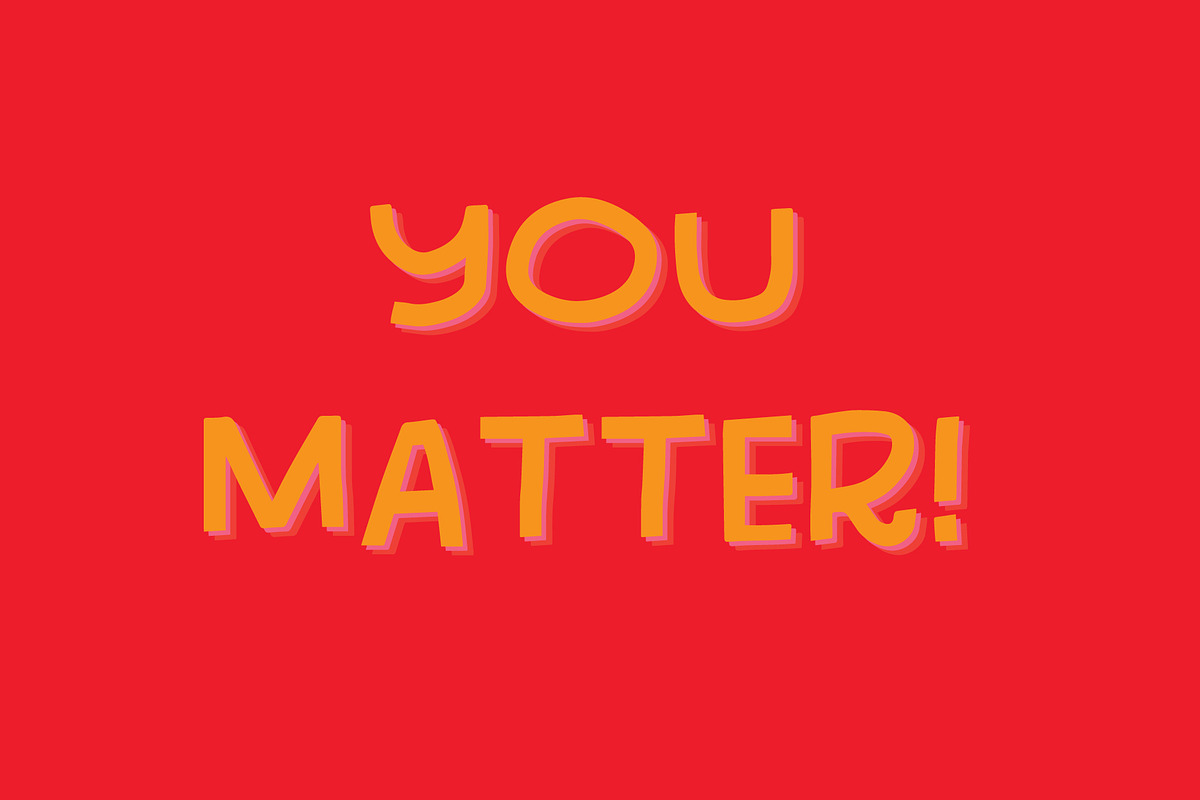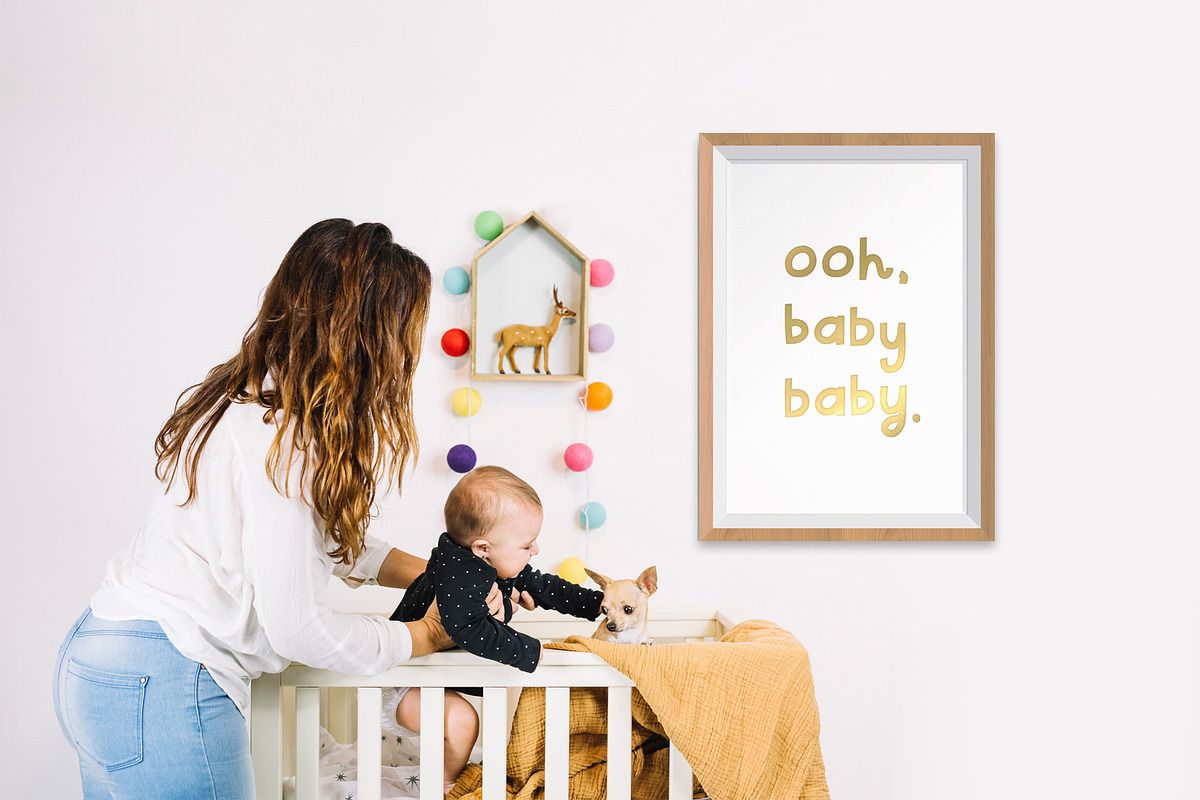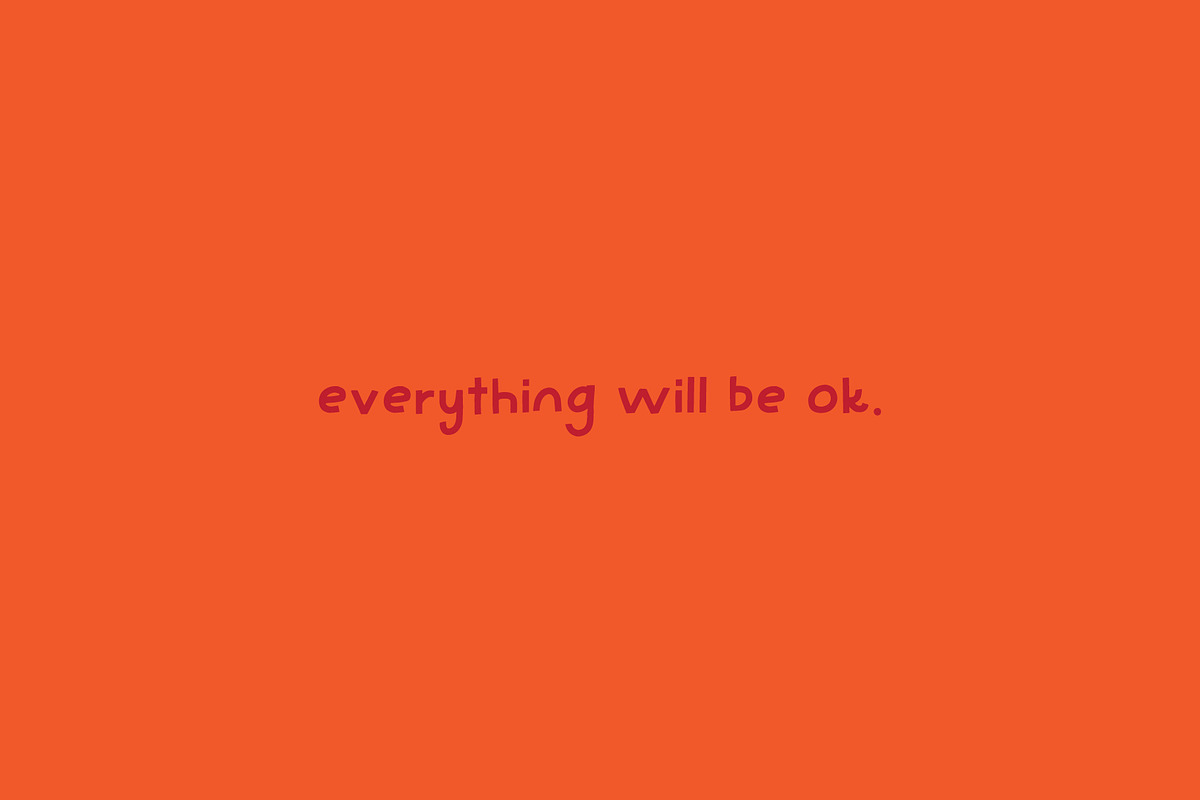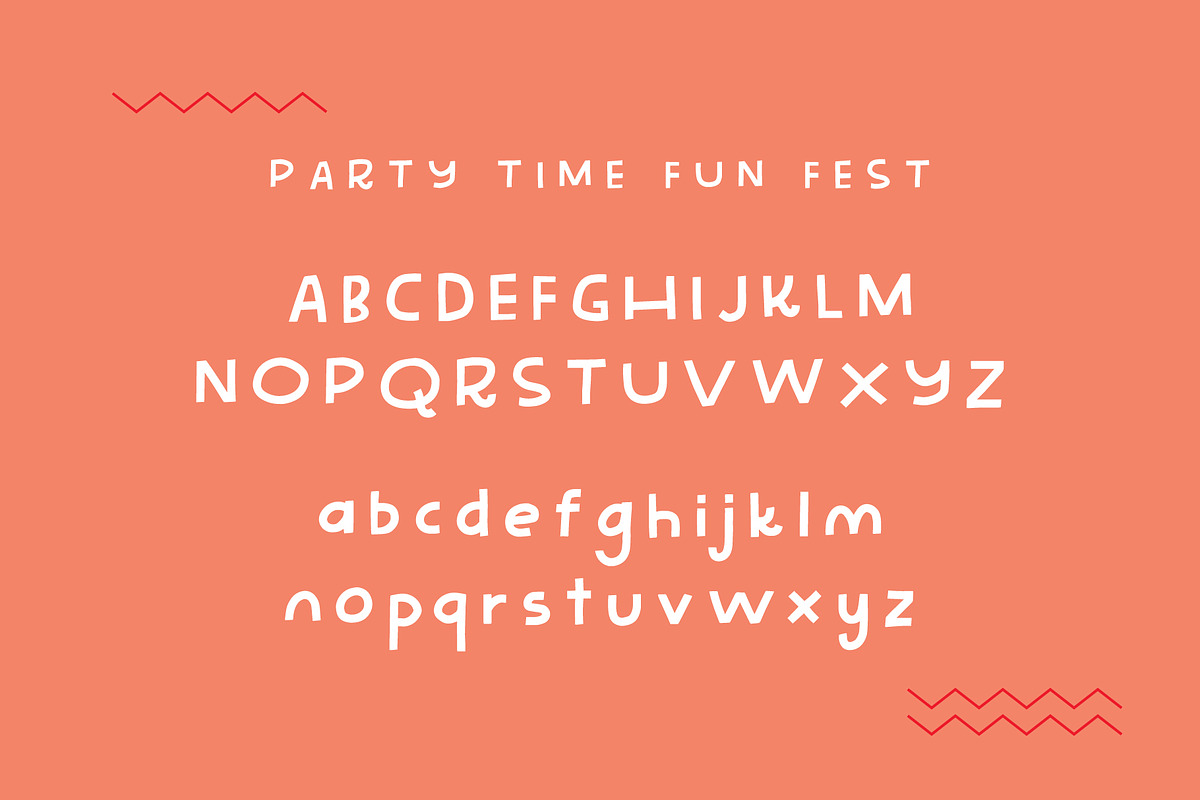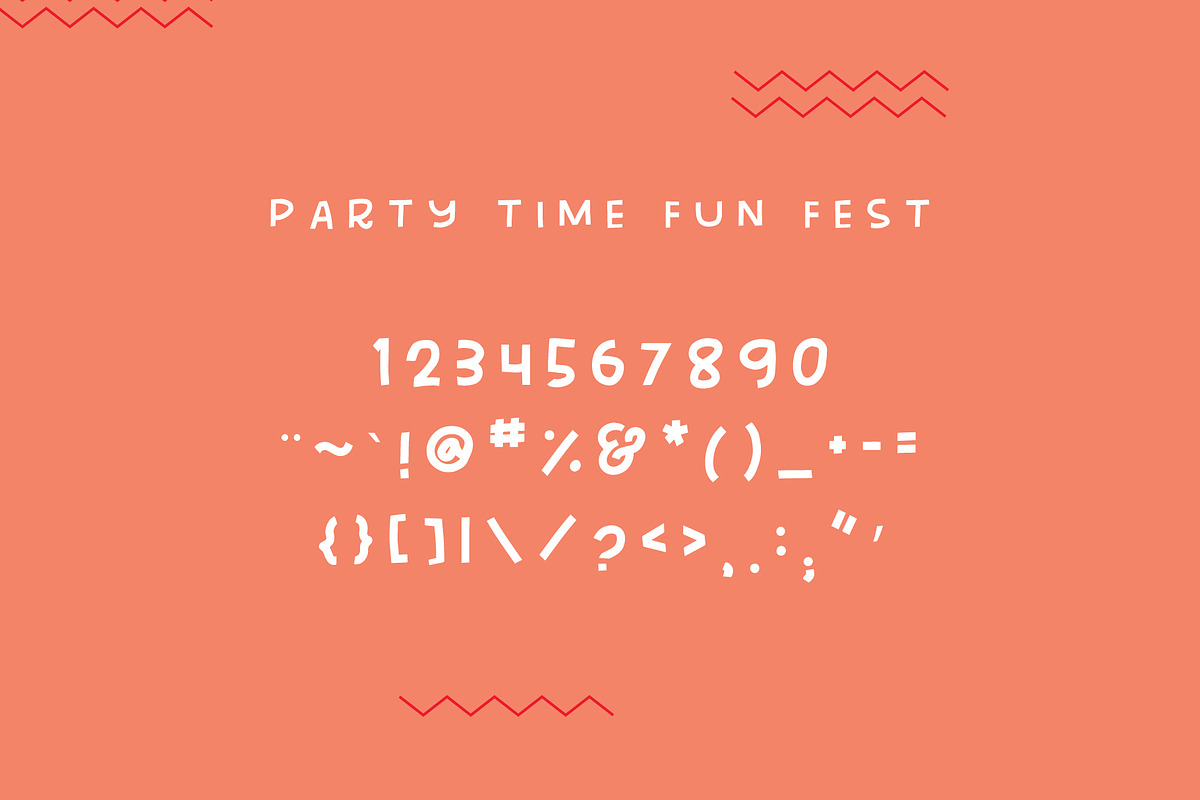
Party Time Fun Fest - The best font!
Party Time Fun Fest the most fun you've ever had in regards to a font, or maybe (but hopefully not) the most fun you've ever had regarding anything. It includes alternates for every letter both Upper and Lowercase, so you can mix and match for the ultimate fun time.
Use it for posters, invitations, love letters, billboards, sides of boats, party decorations, poems, stickers. ANYTHING FUN GOES! Even non fun things like corporate stationary and receipts. THEY WILL BECOME FUN WITH THE USE OF THIS FONT. Ta Daaaaaaaa!!!
Here's what people are saying:
"This font is literally amazing." -People (not the magazine, just people in general)
"I haven't had this much fun designing an invitation for my nephew's birthday since NEVER" - Happy Customer
"Wow" - President Obama
I know this goes without saying, but HAVE FUN with this font!